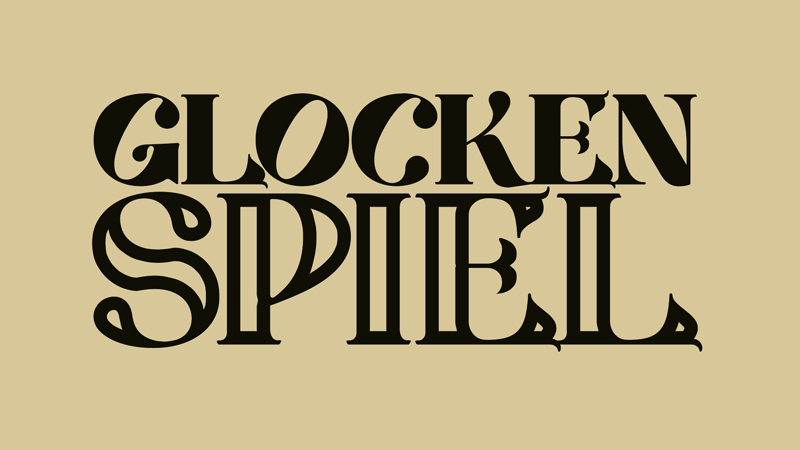
Font name: | LT Glockenspiel |
Author: | LyonsType |
Note by LyonsType | |
"Glockenspiel" is a typeface that reflects on the art nouveau period in a unique magnitude, as well as the aesthetics of the 19th century. The typeface also takes cues from the works of Herman Ihlenburg, Schelter & Giesecke, etc. |